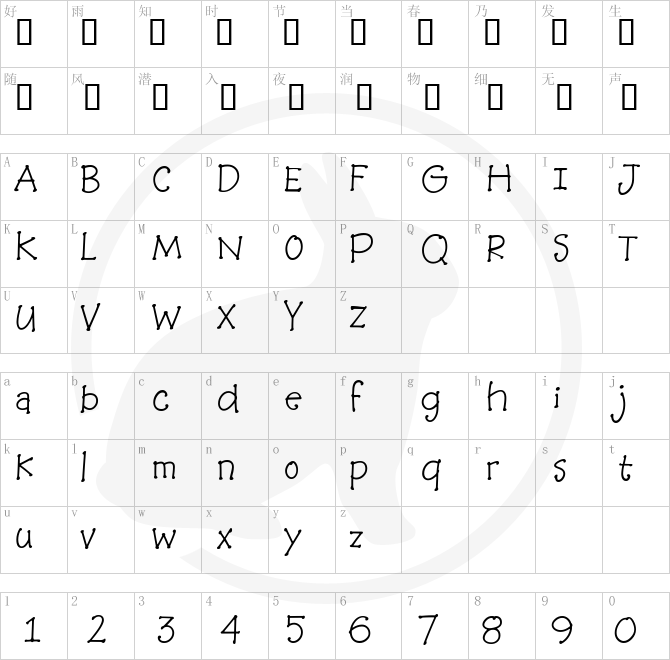
- Font Name:BaaBookHmk
BaaBookHmk.ttf is a very beautiful artistic font, BaaBookHmk.ttf is widely used in the design and printing of various books and pictures,BaaBookHmk.ttf has a strong visual impact,BaaBookHmk.ttf is a commonly used font in newspapers, magazines and books, and is used in posters, e-commerce Poster design, store design, logo design, font design and other fields.BaaBookHmk.